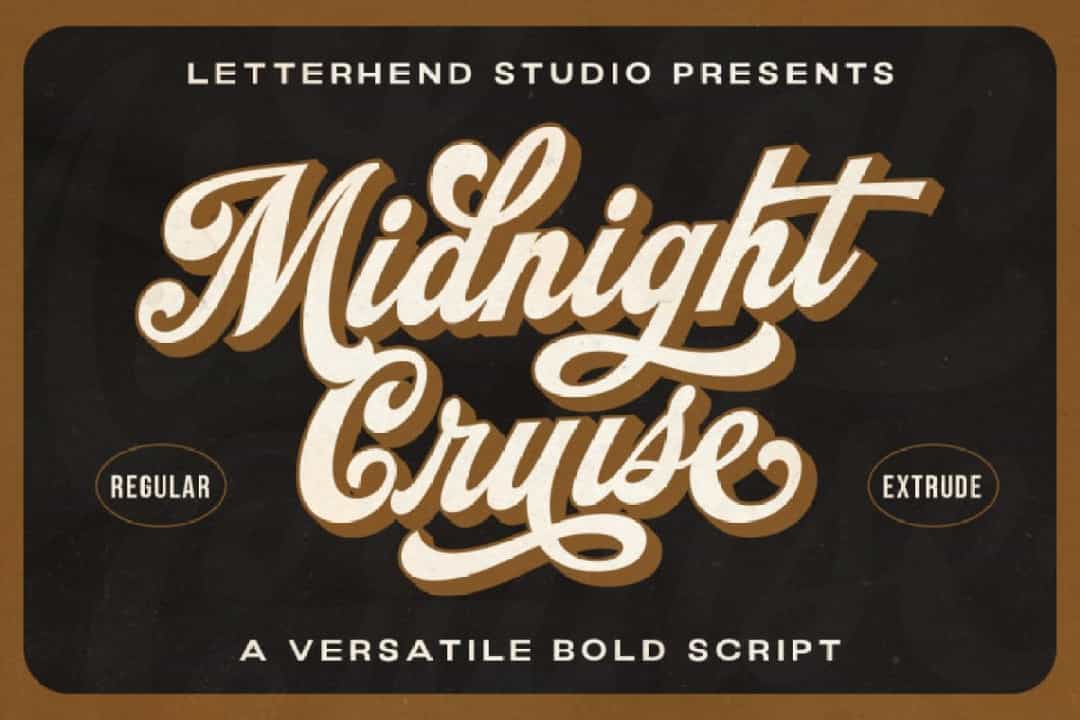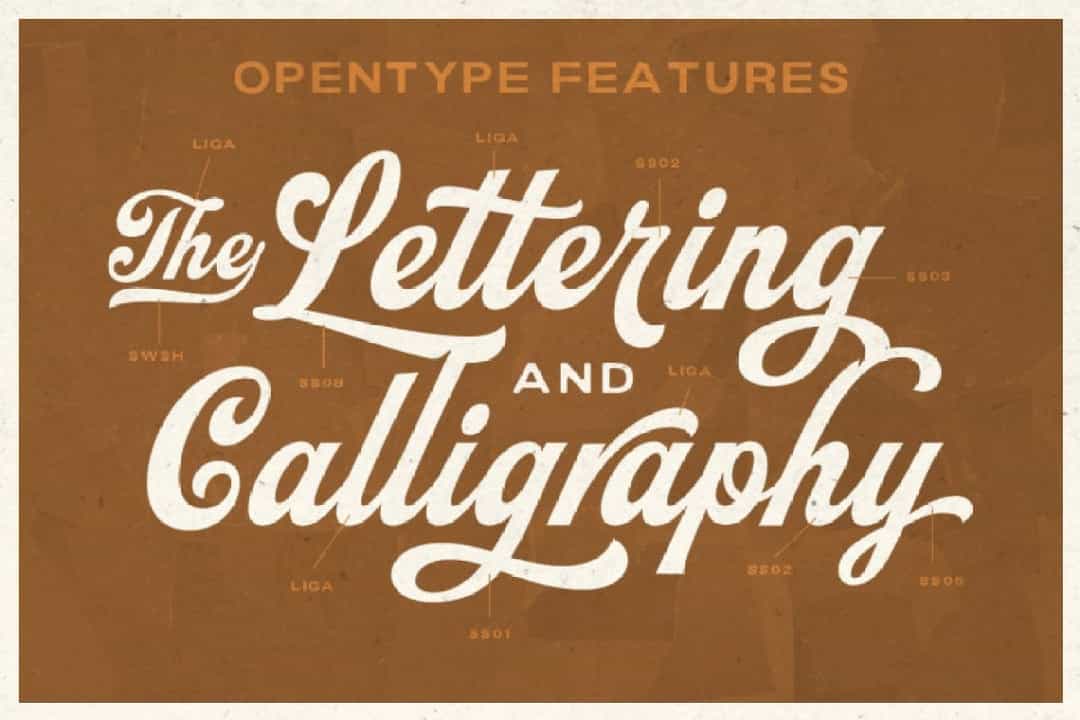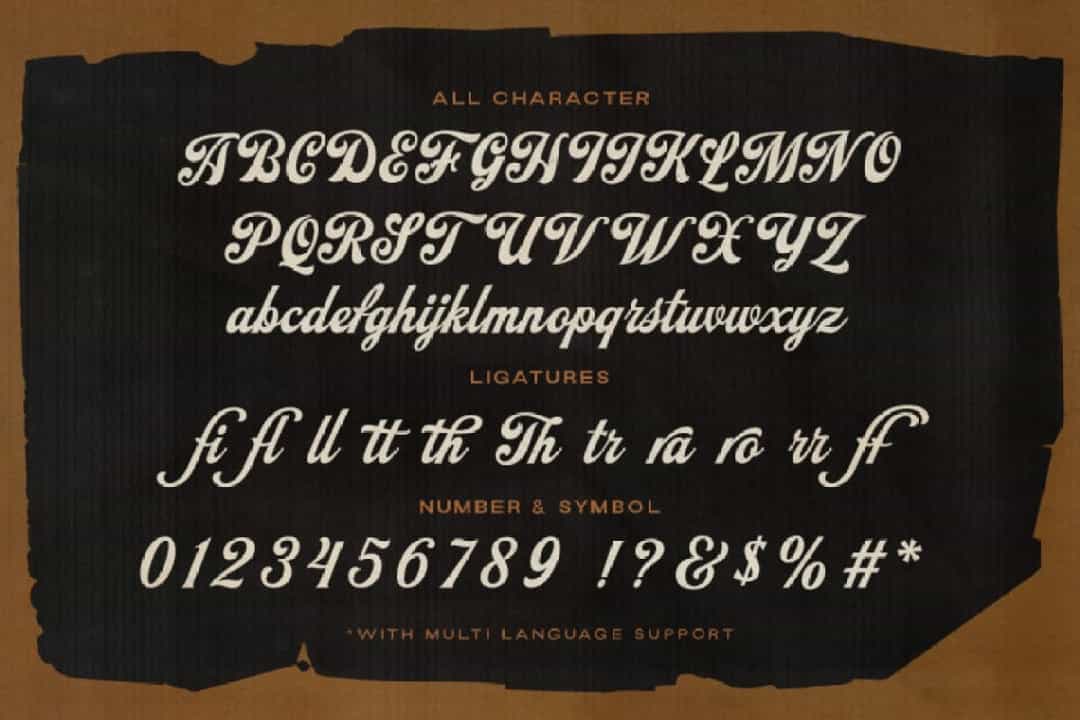
Midnight Cruise is an impressive big script calligraphy font featuring classic styles. Perfect for headlines, logos signs, formal designs such as invitations or labels; magazine headers; greeting/wedding card packaging designs, fashion makeup packaging labels or any other commercial purpose; Midnight Cruise can be used anywhere this font may be needed!